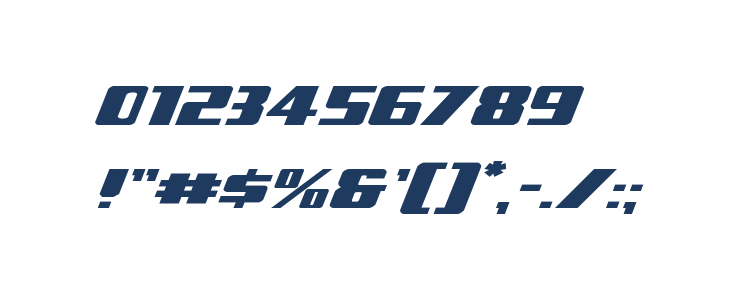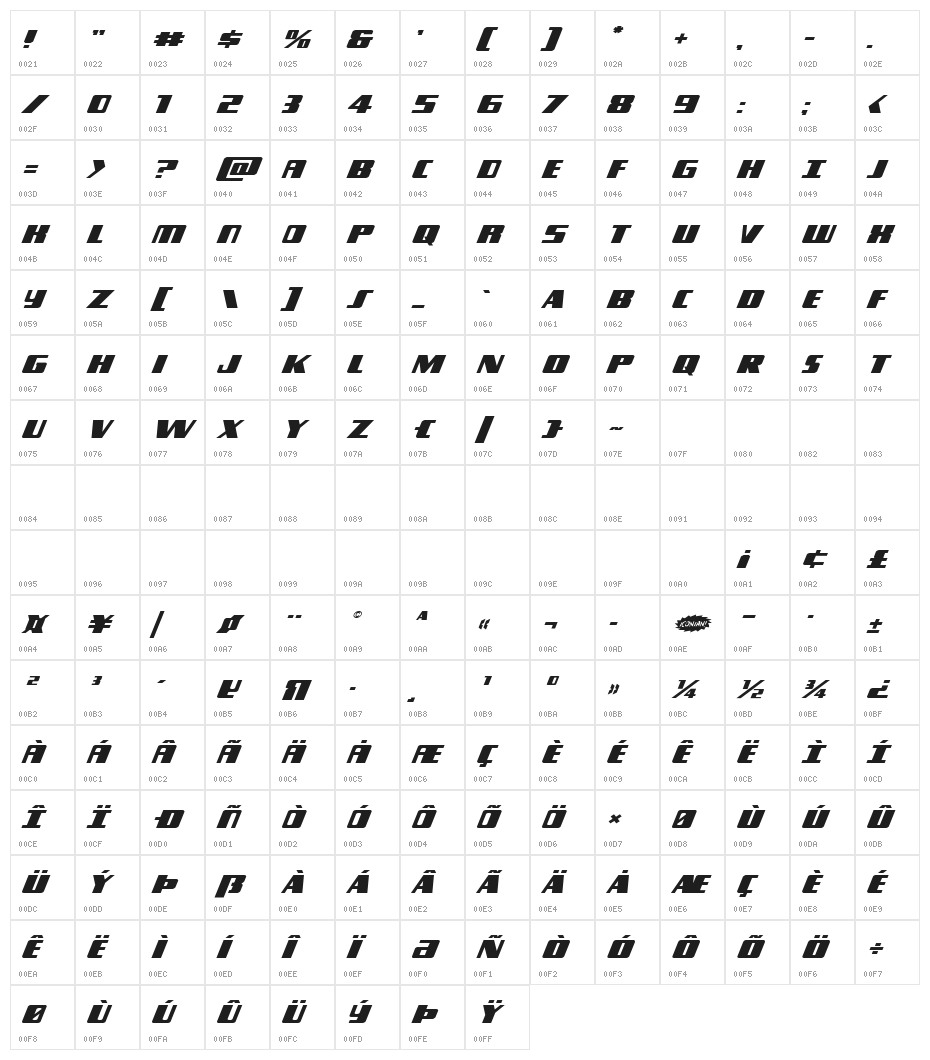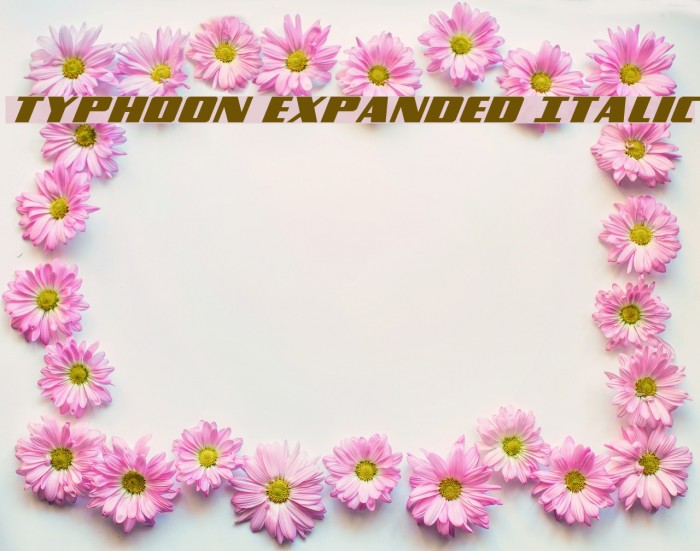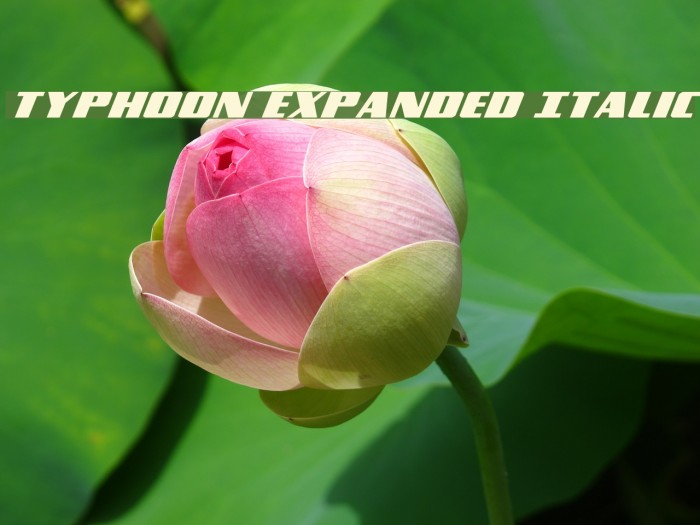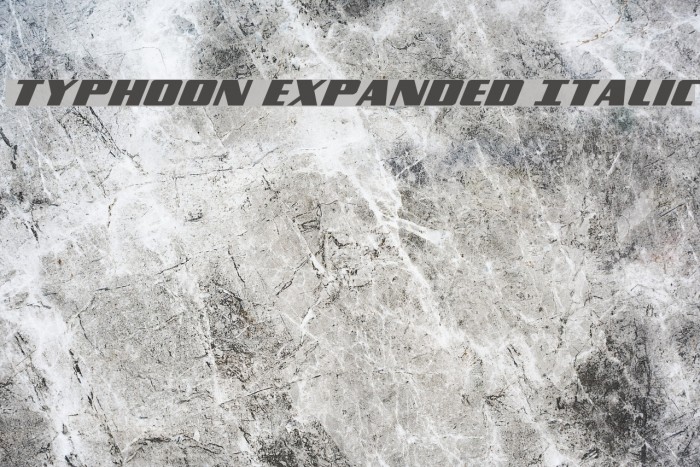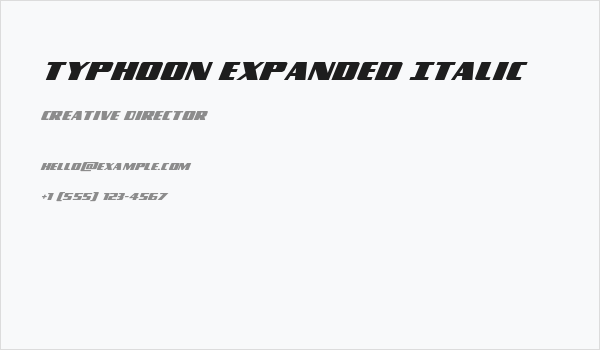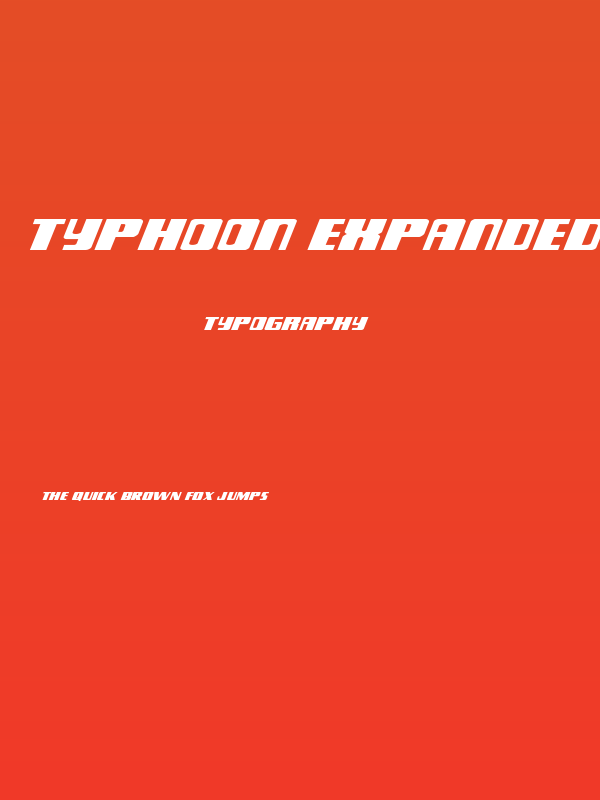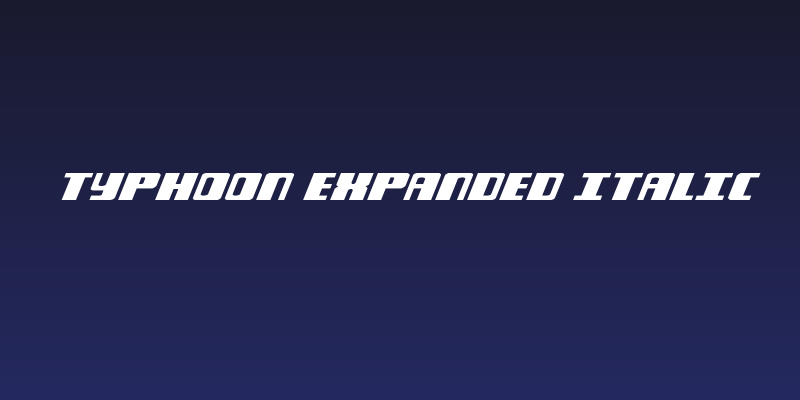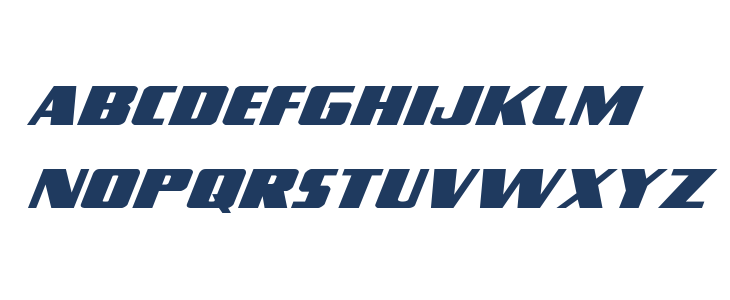
Typhoon Expanded Italic Font
Typhoon Expanded Italic Description
This font features a bold and dynamic style with an italic slant, giving it a sense of movement and energy. The characters are expanded, providing a wide stance that enhances readability while maintaining a strong visual impact. The angular cuts and sharp edges contribute to its modern and futuristic appearance. The uppercase and lowercase letters are consistent in style, with numerals and special characters following the same design principles. This font is ideal for projects that require a bold statement and a contemporary look.
| Proposed Projects | Ideal for sports branding, action movie posters, video game titles, and dynamic advertising campaigns. |